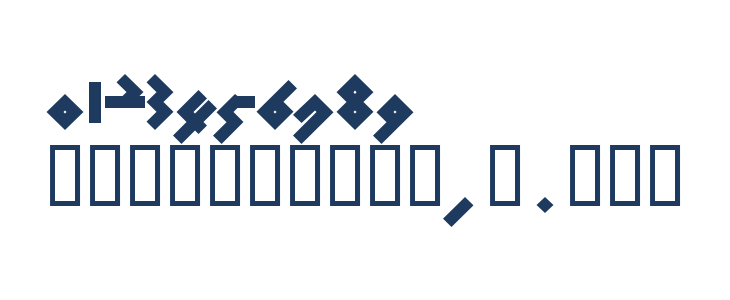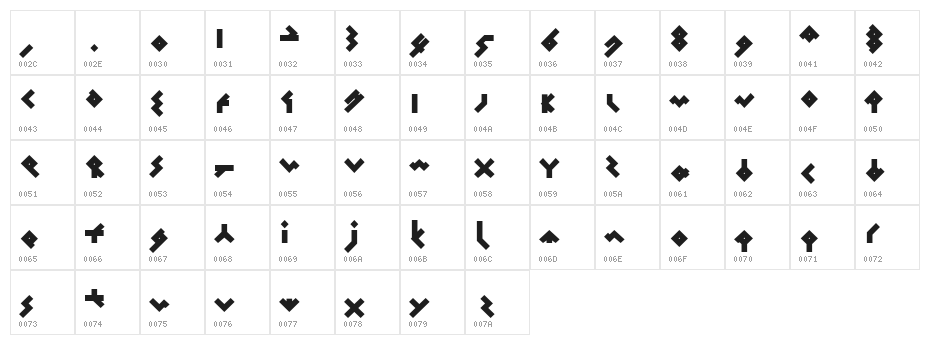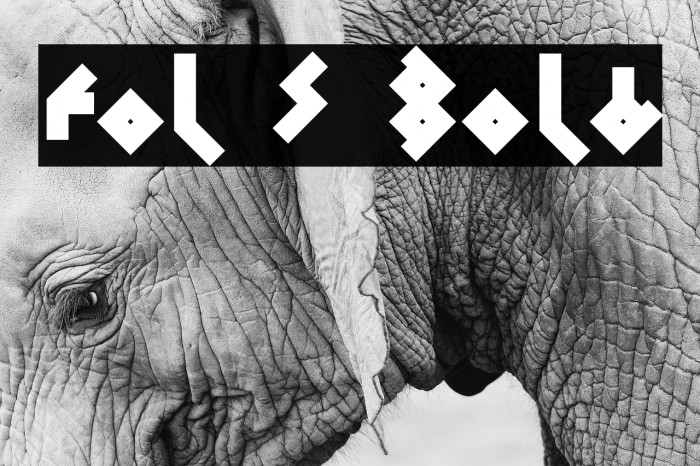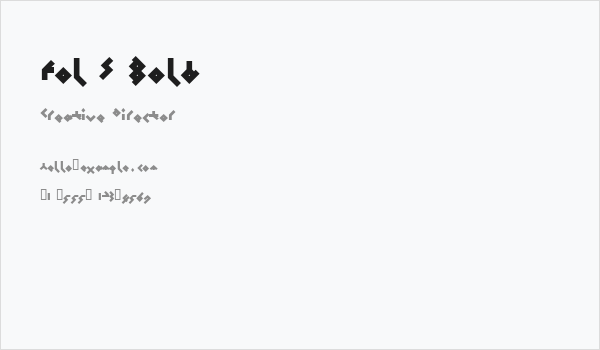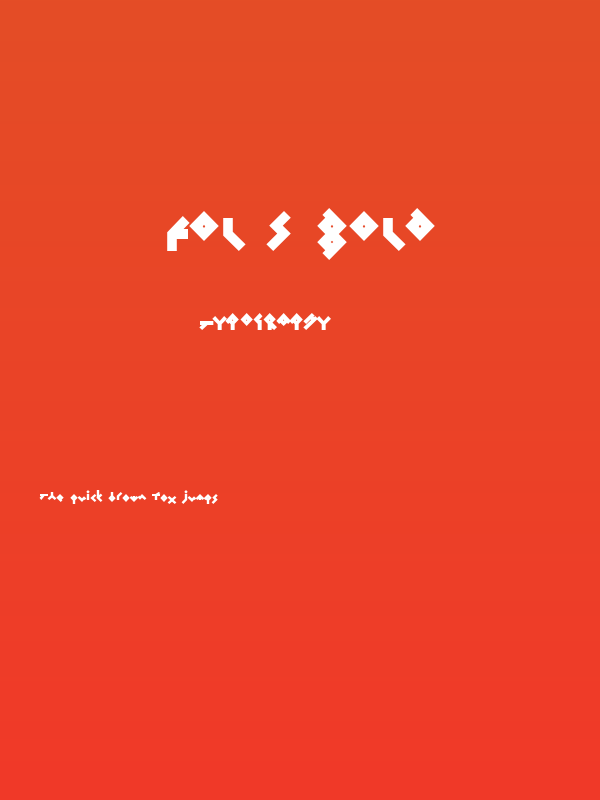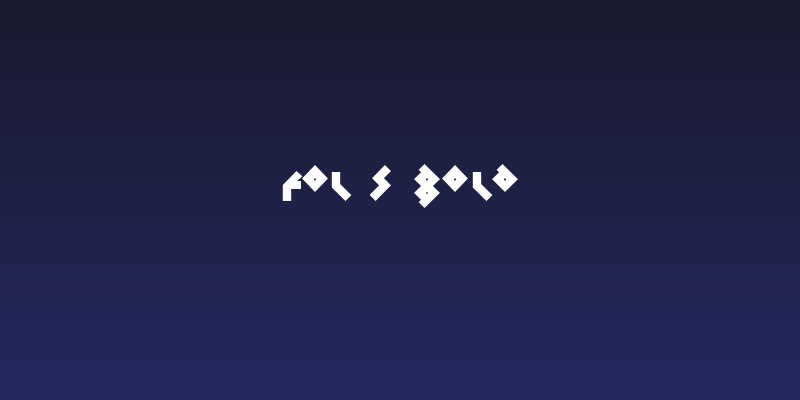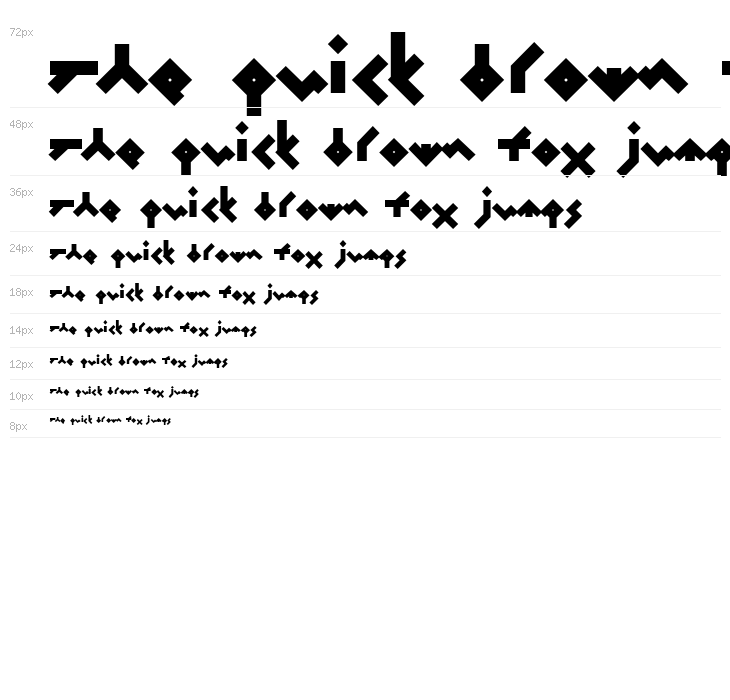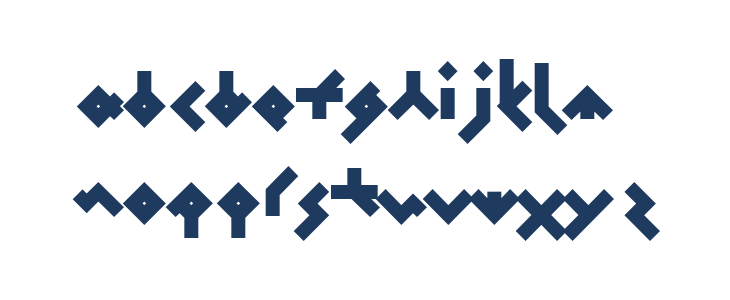
Fol S Bold Font
Fol S Bold Description
This font features a bold and geometric design with a distinctively modern and abstract appearance. Each character is crafted with sharp angles and straight lines, creating a futuristic and digital aesthetic. The characters are filled with solid black, and many include a central dot, adding a unique decorative element. The overall style is highly stylized and unconventional, making it stand out in any design. The font's boldness and geometric shapes make it suitable for projects that require a strong visual impact.
| Proposed Projects | Ideal for digital art, futuristic branding, video game design, and sci-fi themed projects. |